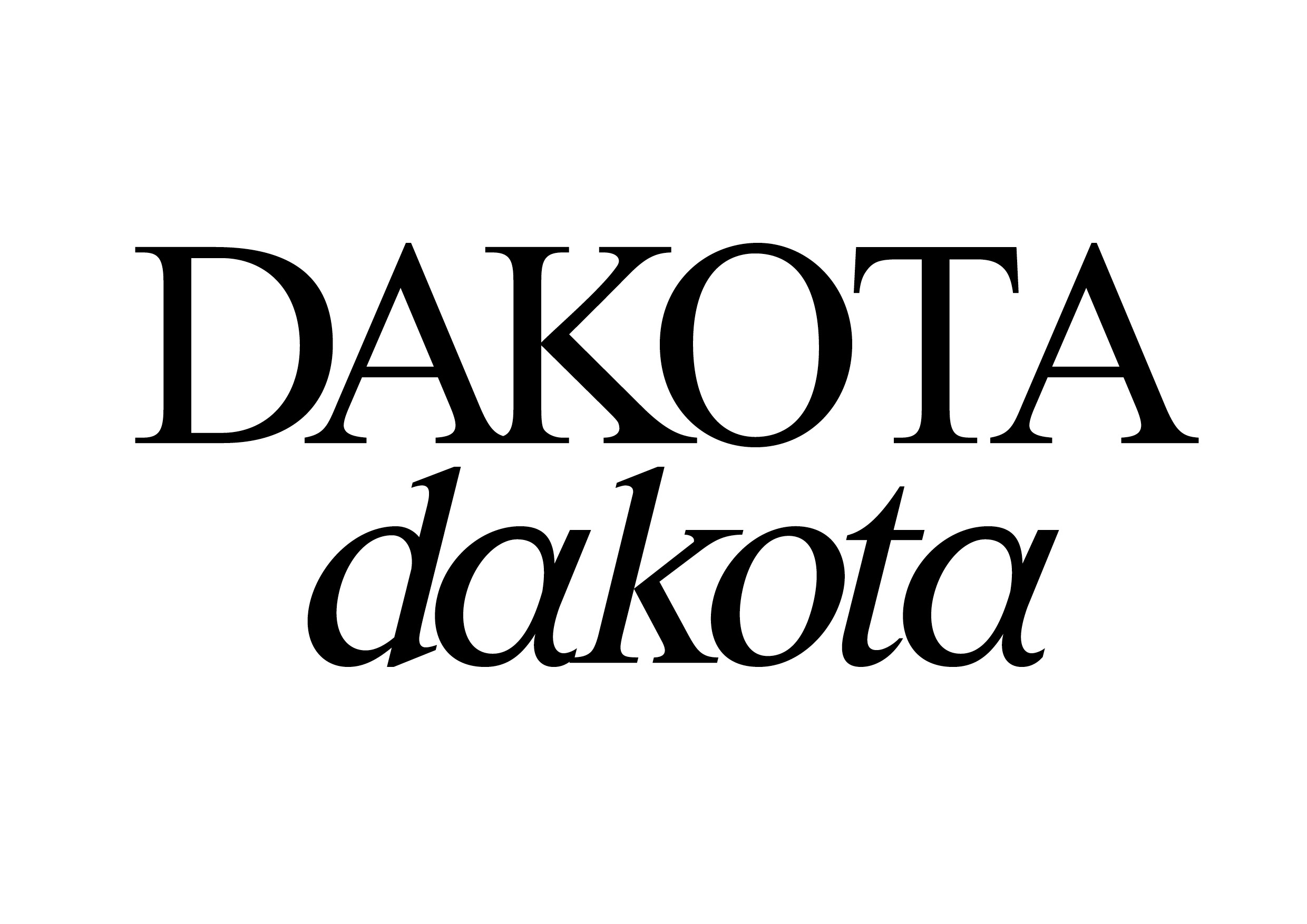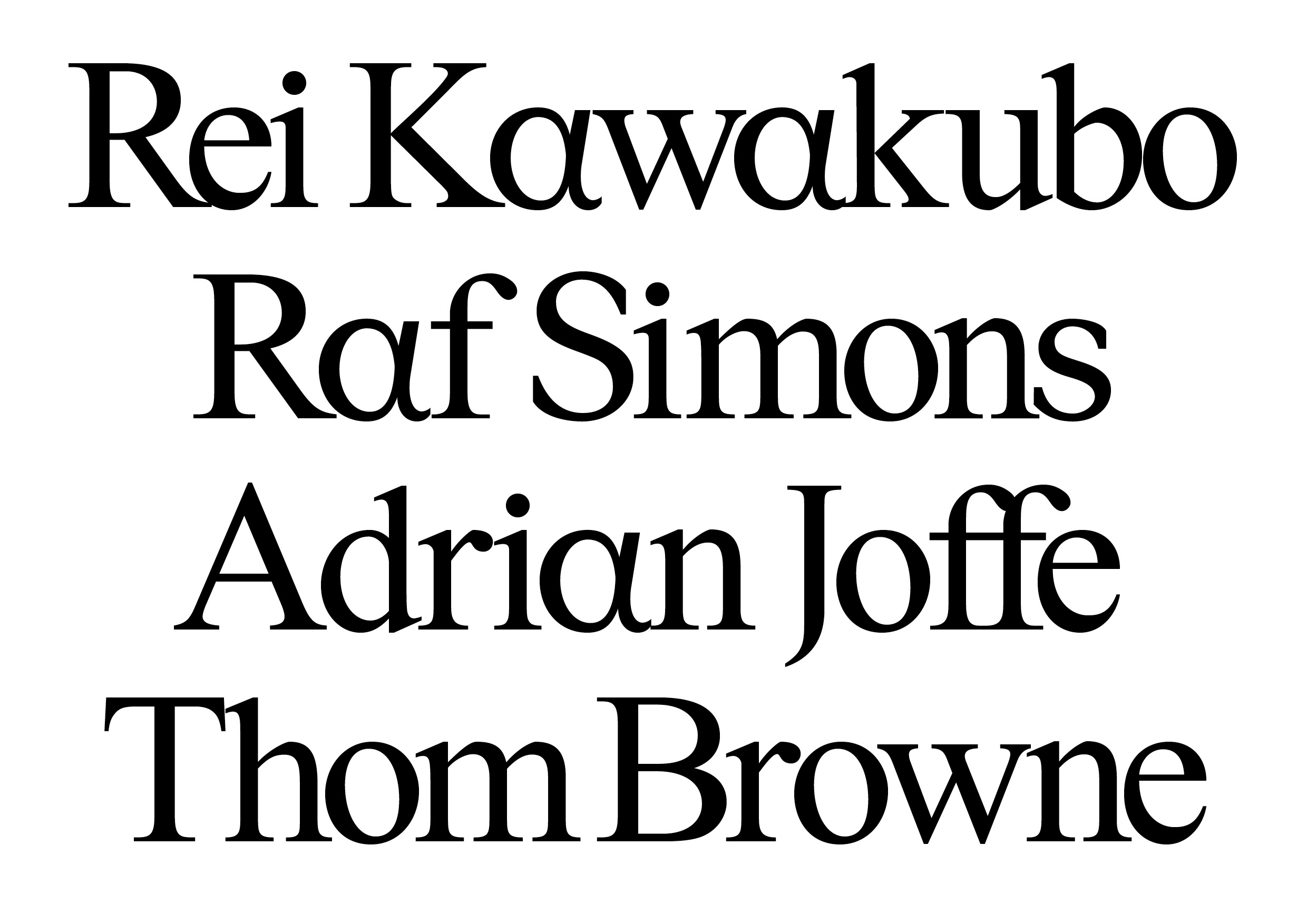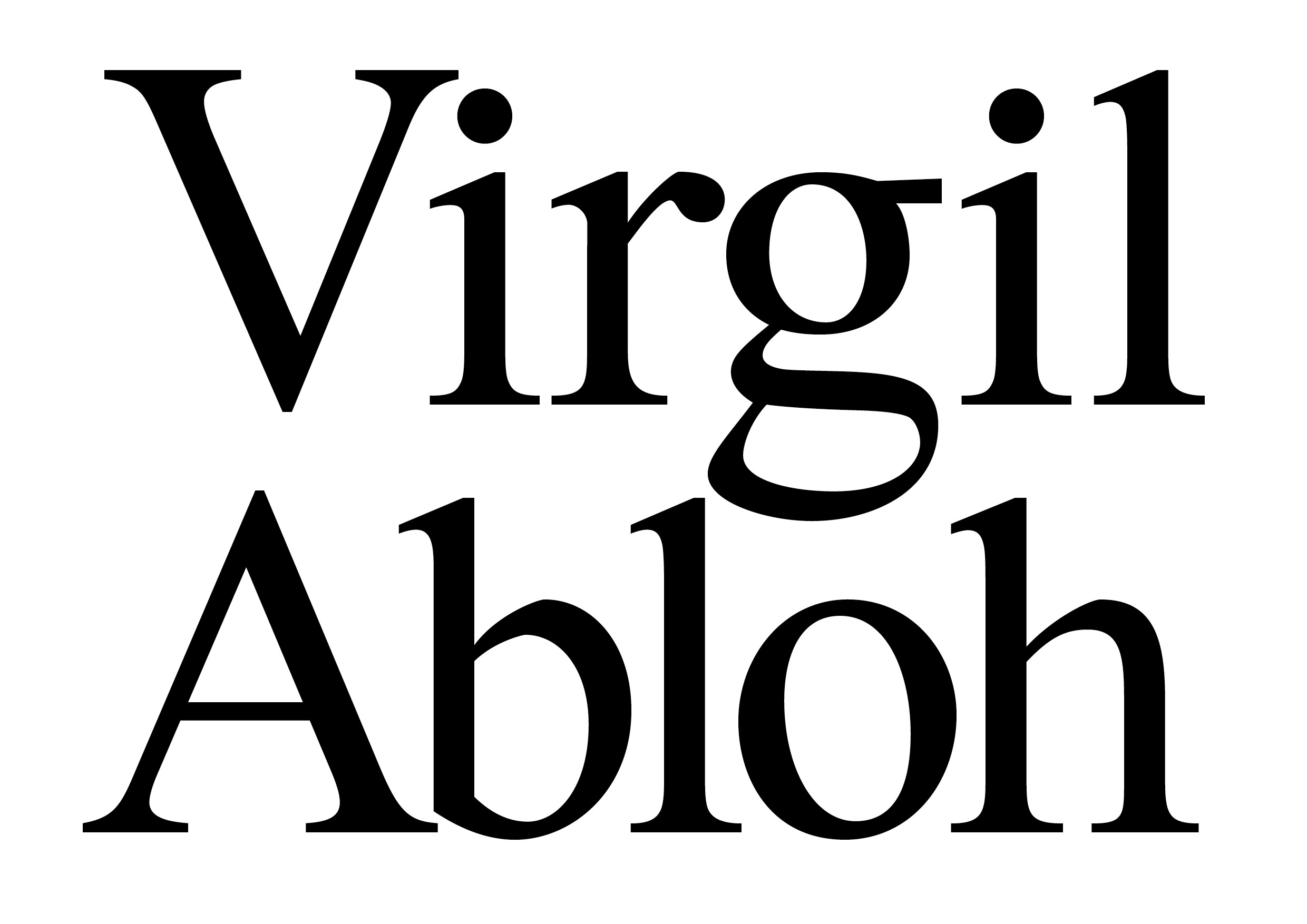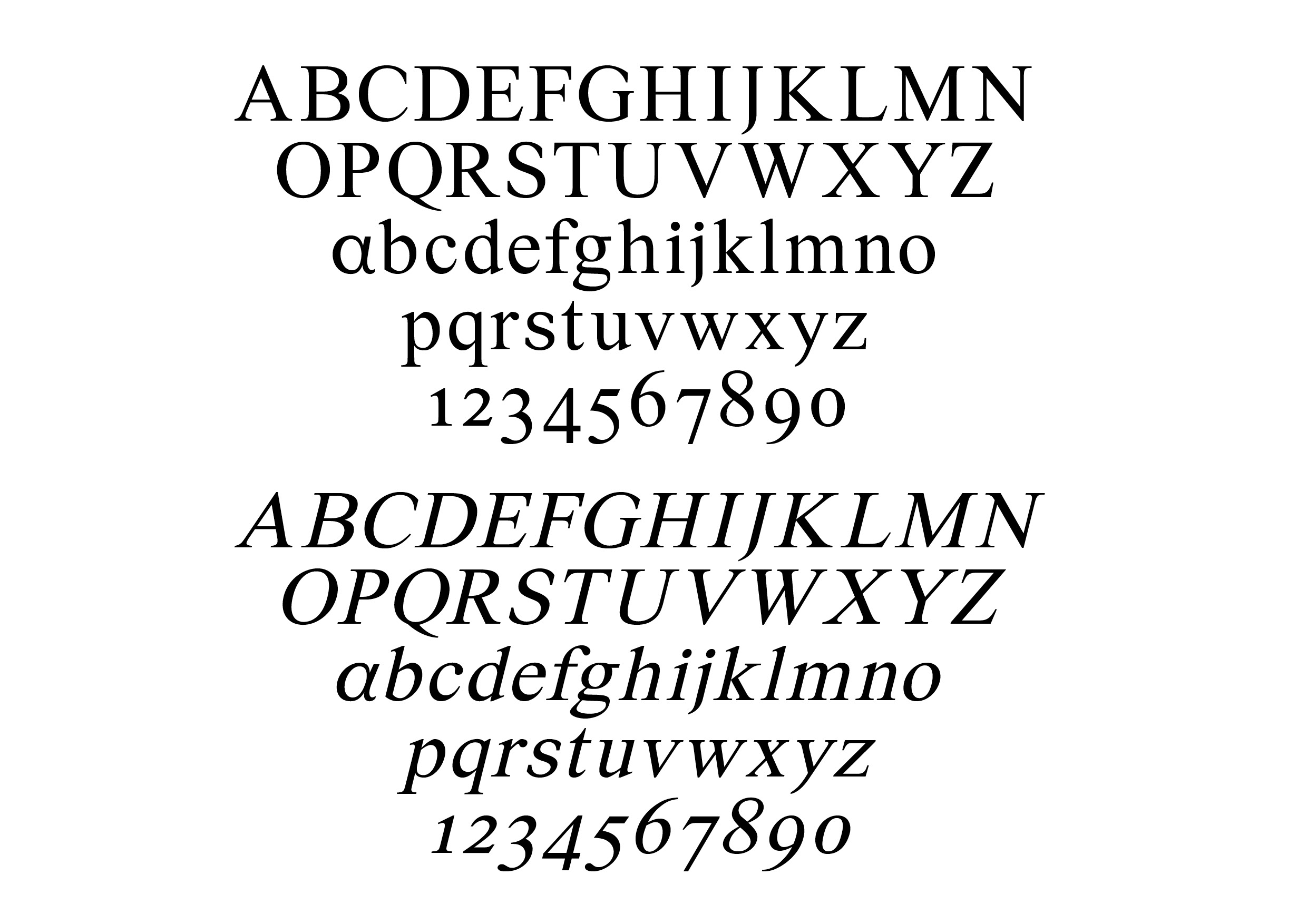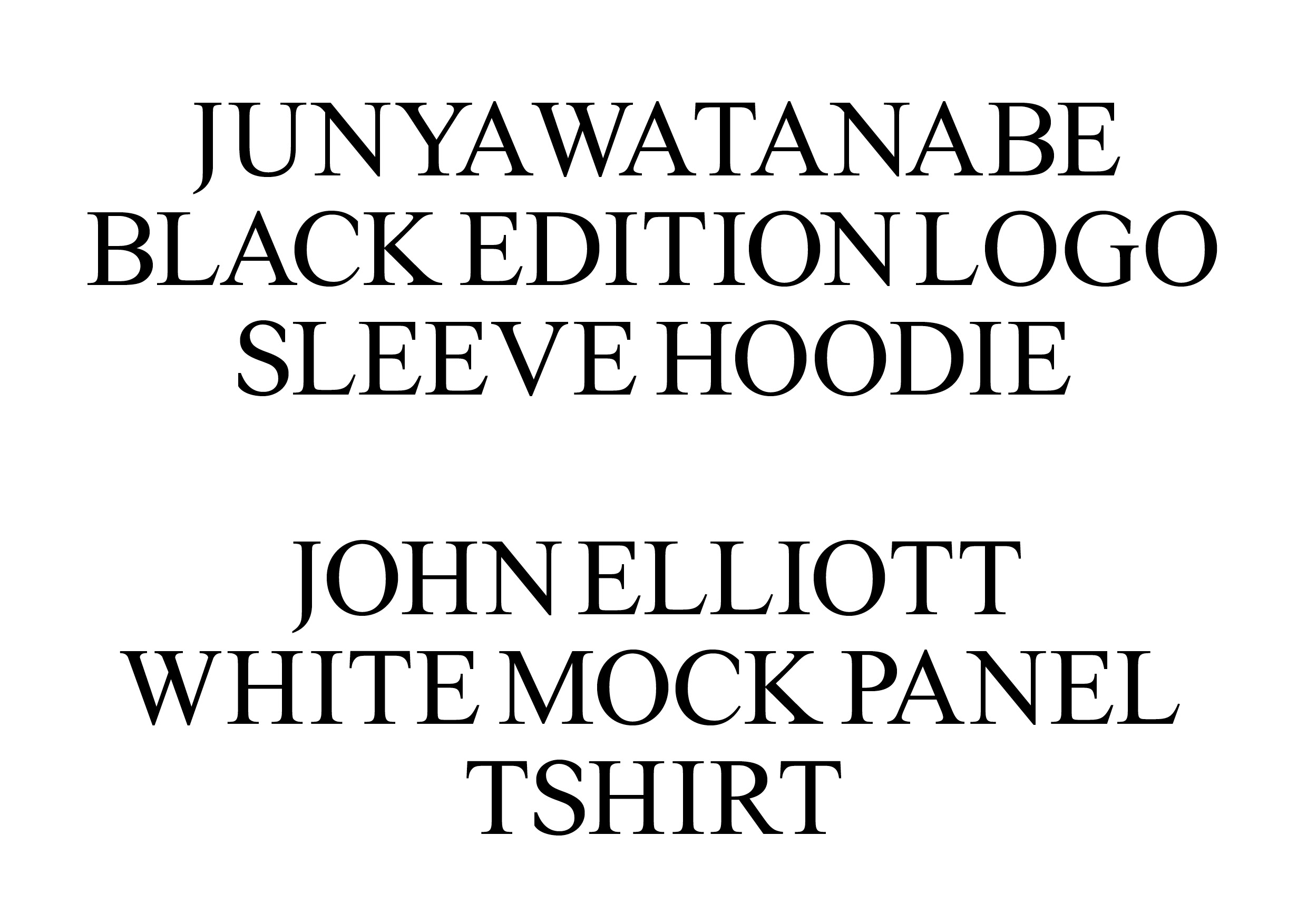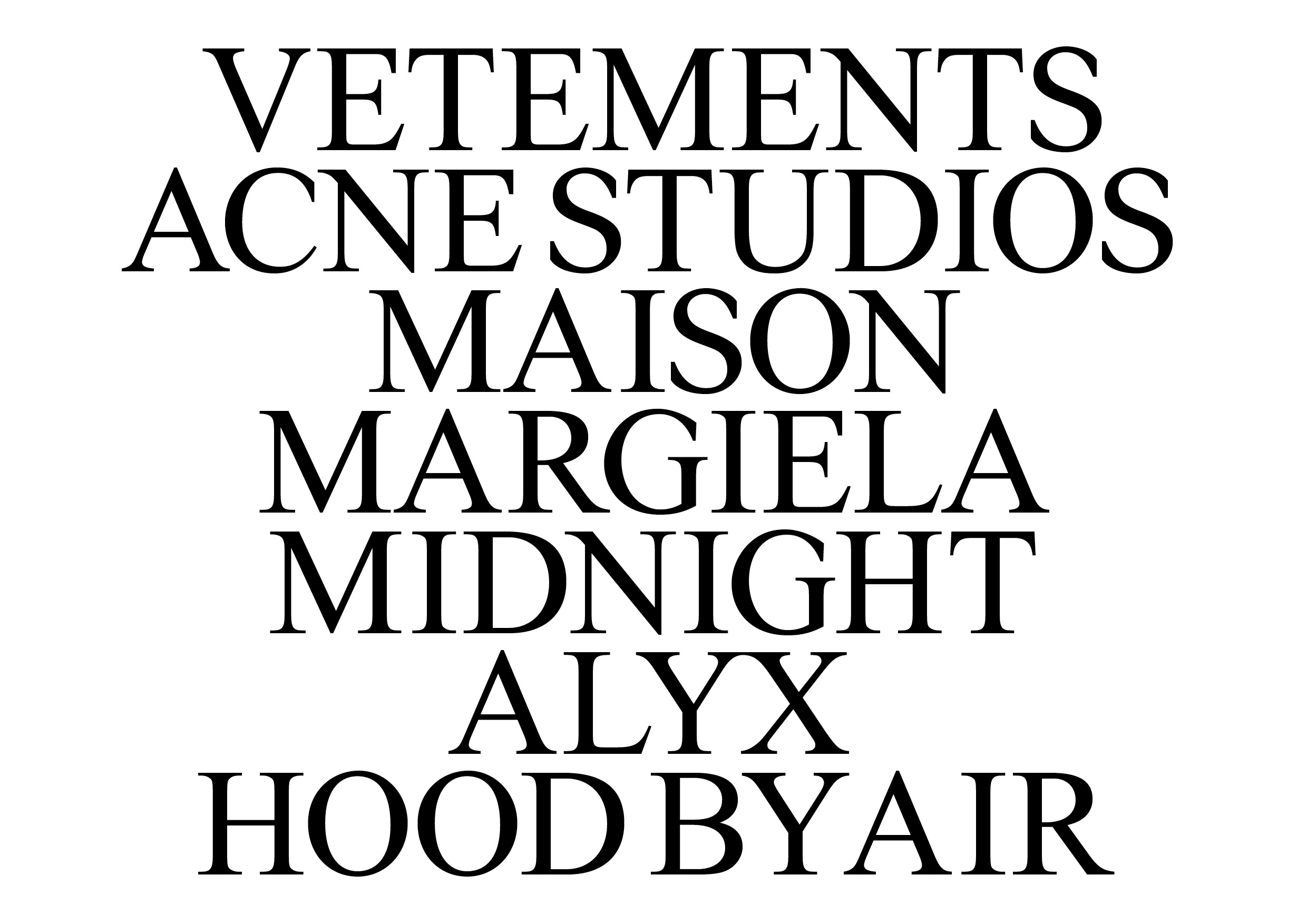
Dakota
Perfect is rarely the thing you remember. A crooked smile. A nose that's a little too big. The small differences that make one person look like themselves. Dakota began with the same idea. We were interested in the contours and imperfections of the human body and in old Comme des Garçons ephemera that seemed to find beauty in unusual places too. The letters swell and narrow. Some sit a little awkwardly beside one another. Those are the parts we like. Set Dakota large and the imperfections become the point. It comes in one weight. It only needed one.
Serif